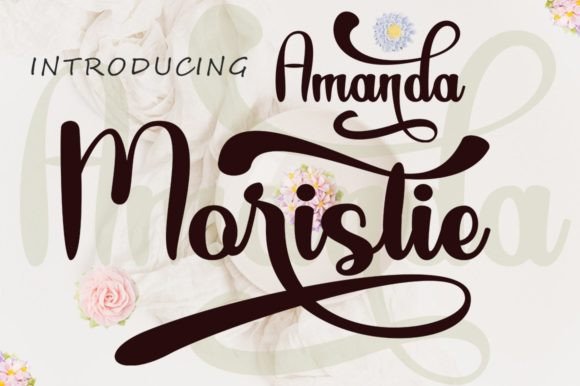
The Amanda Moristie Font: A Retro-Chic Game-Changer for Designers and Crafters
This retro-styled and sophisticated handwritten font has been a game-changer for my design projects, and I’m excited to share its awesomeness with you. Whether you’re a designer, crafter, or creative hobbyist, Amanda Moristie is sure to elevate your crafting ideas and take your projects to the next level.
- ✅ Retro-chic vibe that’s perfect for vintage-inspired projects
- ✅ Sophisticated and elegant, yet still playful and charming
- ✅ Highly versatile and adaptable to various design projects
- ⚠️ Some users may find the font a tad too ornate for very minimalist designs
- ⚠️ Limited availability of certain characters and symbols (but PUA encoding makes up for it)
The Designer Inspiration Behind Amanda Moristie
Amanda Moristie was designed with the intention of capturing the essence of retro-chic elegance and sophistication. The font’s creator drew inspiration from classic typography and handwriting styles, infusing them with a modern twist to create a truly unique and versatile font.
A: PUA (Private Use Area) encoding allows font users to access a wide range of glyphs, swashes, and stylistic alternates, making it easier to customize and personalize their designs.